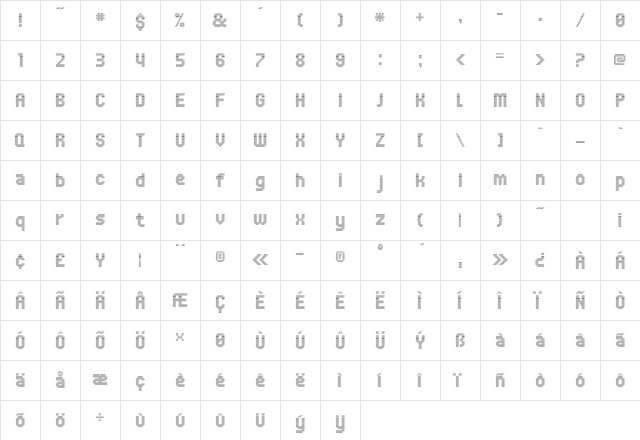
UNDATriangle Regular Font Preview
UNDATriangle Regular
Design Context for UNDATriangle Typeface
UNDATriangle offers clean, dependable letterforms without strong stylistic allegiance, making it a practical choice for designers who need flexibility.